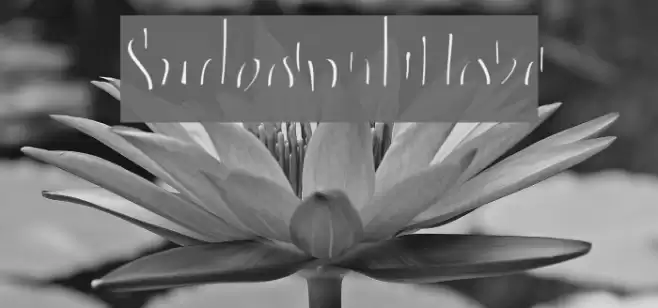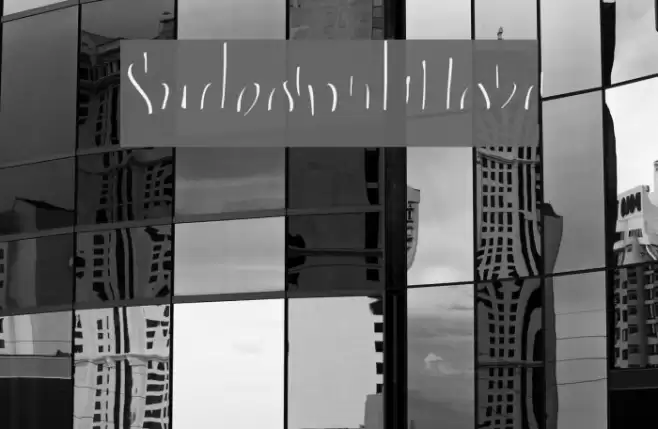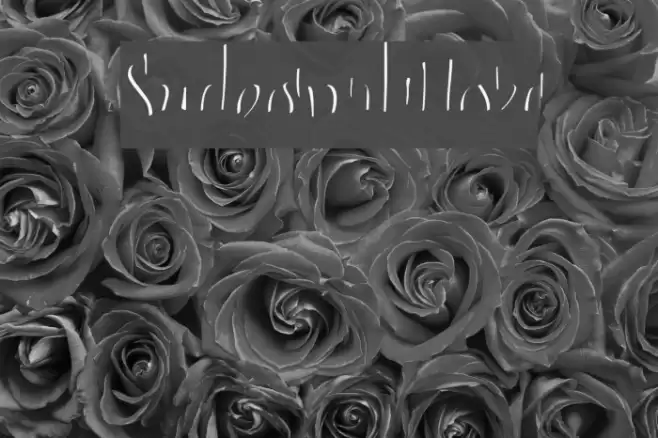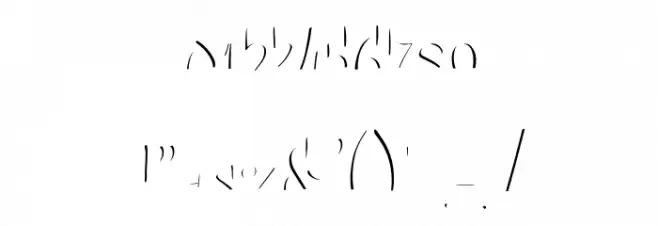
SudegnakNo3c Font
SudegnakNo3c Description
This font features a highly stylized and modern design with a distinct artistic flair. The characters are elongated and narrow, with sharp, angular cuts that create a sense of movement and dynamism. The strokes are thin and vary in width, contributing to a high contrast appearance. The overall look is sleek and avant-garde, making it suitable for contemporary and creative projects. The unique form of each letter adds a touch of sophistication and elegance, while the spacing between characters is tight, enhancing its compact and efficient style.
A modern, high-contrast font with elongated, angular characters and tight spacing from Uncategorized fonts.
- Proposed Projects: Ideal for fashion branding, modern art posters, avant-garde magazine covers, and innovative product packaging.
- Character Spacing: Tight